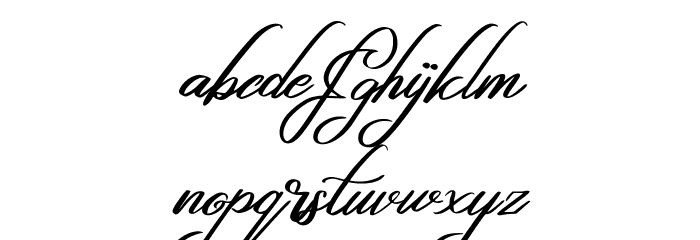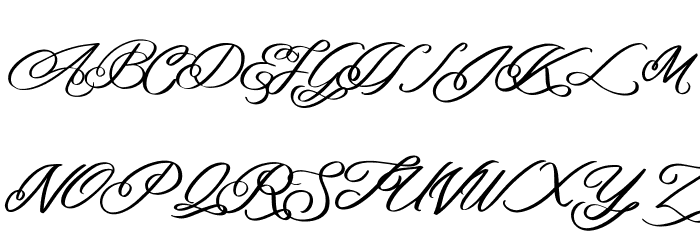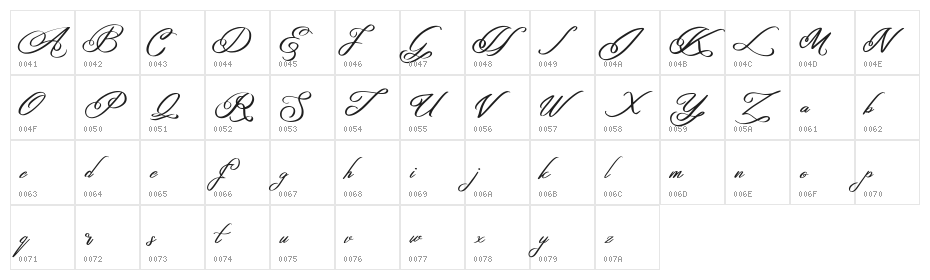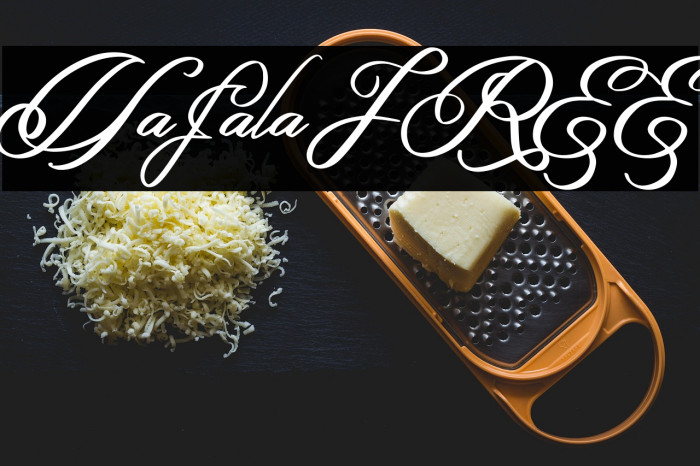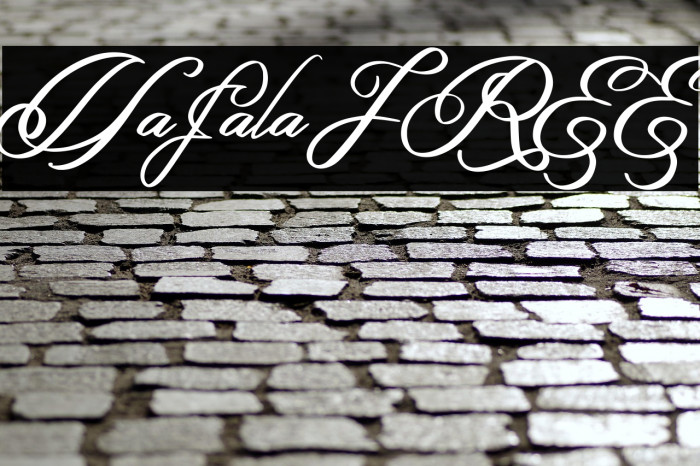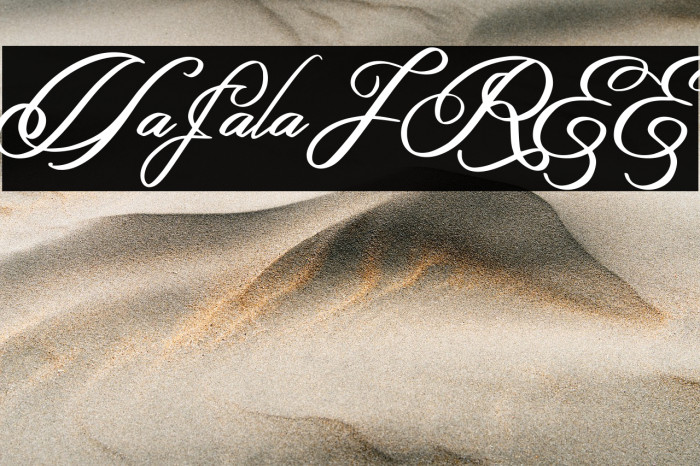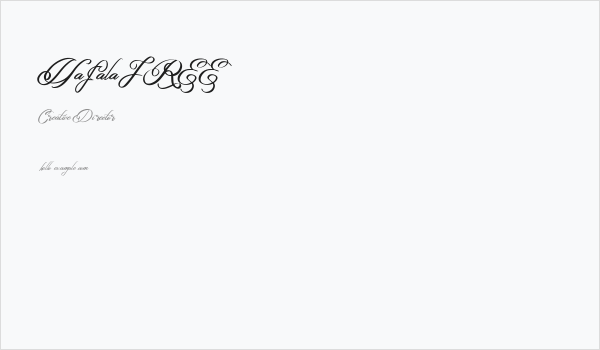
Hafala FREE Font
This font is an elegant and sophisticated script style, characterized by its flowing, interconnected letterforms and intricate swashes. The uppercase letters are particularly ornate, featuring elaborate loops and flourishes that give a sense of grandeur and formality. The lowercase letters maintain a consistent style, with smooth curves and a slightly slanted orientation, enhancing the overall fluidity of the text. The font's design is reminiscent of traditional calligraphy, making it suitable for projects that require a touch of elegance and refinement. The spacing between characters is tight, which adds to the cohesive appearance of the text. This font is ideal for use in formal invitations, certificates, and branding that seeks to convey a sense of luxury and sophistication.
An elegant script font with flowing, interconnected letterforms and intricate swashes.
- Proposed Projects: Ideal for wedding invitations, formal event programs, luxury branding, and elegant packaging design.
- Character Spacing: Tight
- Overall Style: Classic
- Use Case: Headlines, Logos, Invitations